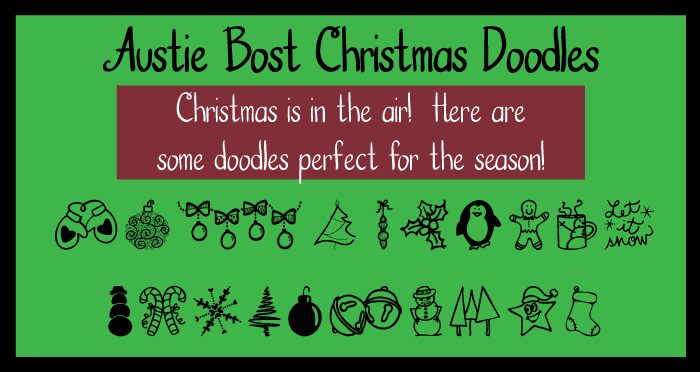
Austie Bost Christmas Doodles by Austin Owens is a free Christmas dingbat font filled with cheerful seasonal drawings. Its loose outlines give the familiar ornaments, angels, candy canes, bows, mittens, holly, and snowflakes the easy warmth of inked doodles. Uneven curves keep the collection informal and lively.
Holiday cards are its clearest use, since the symbols can supply borders, spot illustrations, or a playful centerpiece without requiring separate artwork. The same hand-drawn imagery also suits gift tags, classroom printables, seasonal party invitations, and craft packaging, but greeting-card designs make the fullest use of its broad mix of recognizable Christmas icons.